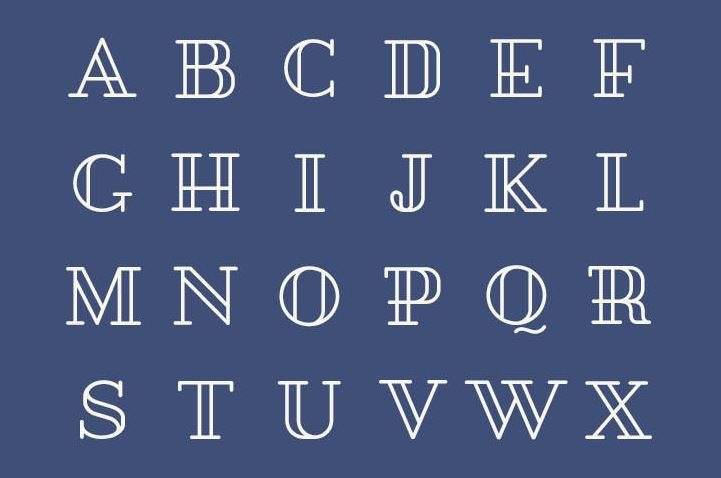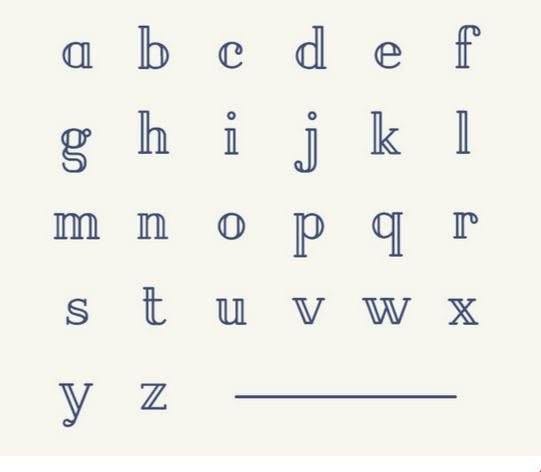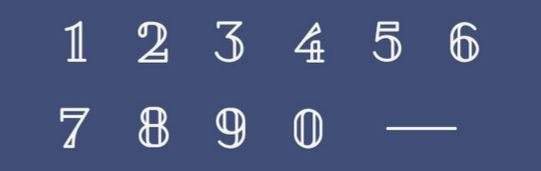
Free Font Of The Day #104 – Pirou Font
Pirou Font
The Font is an experimental free font inspired by Didot. The font contains more than 300 characters including uppercase, lowercase, numbers, symbols, ligatures and accents. Designed by Quentin Grébeude.